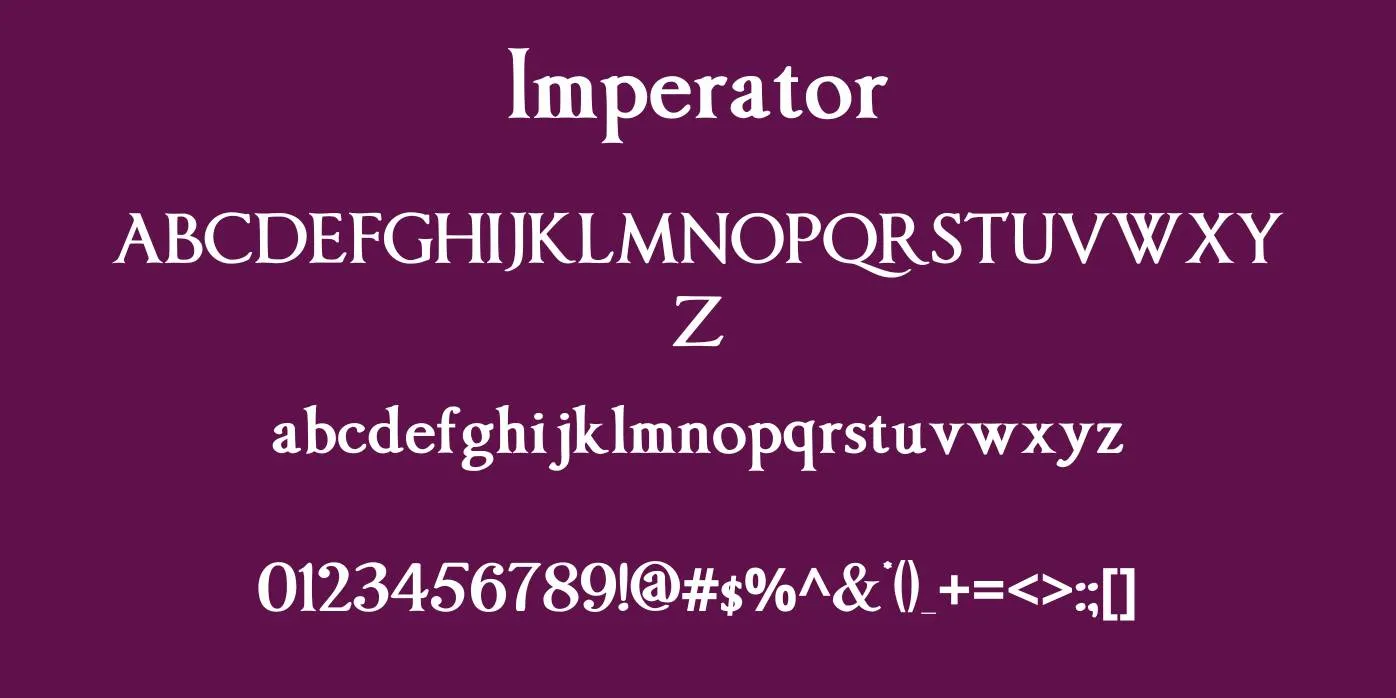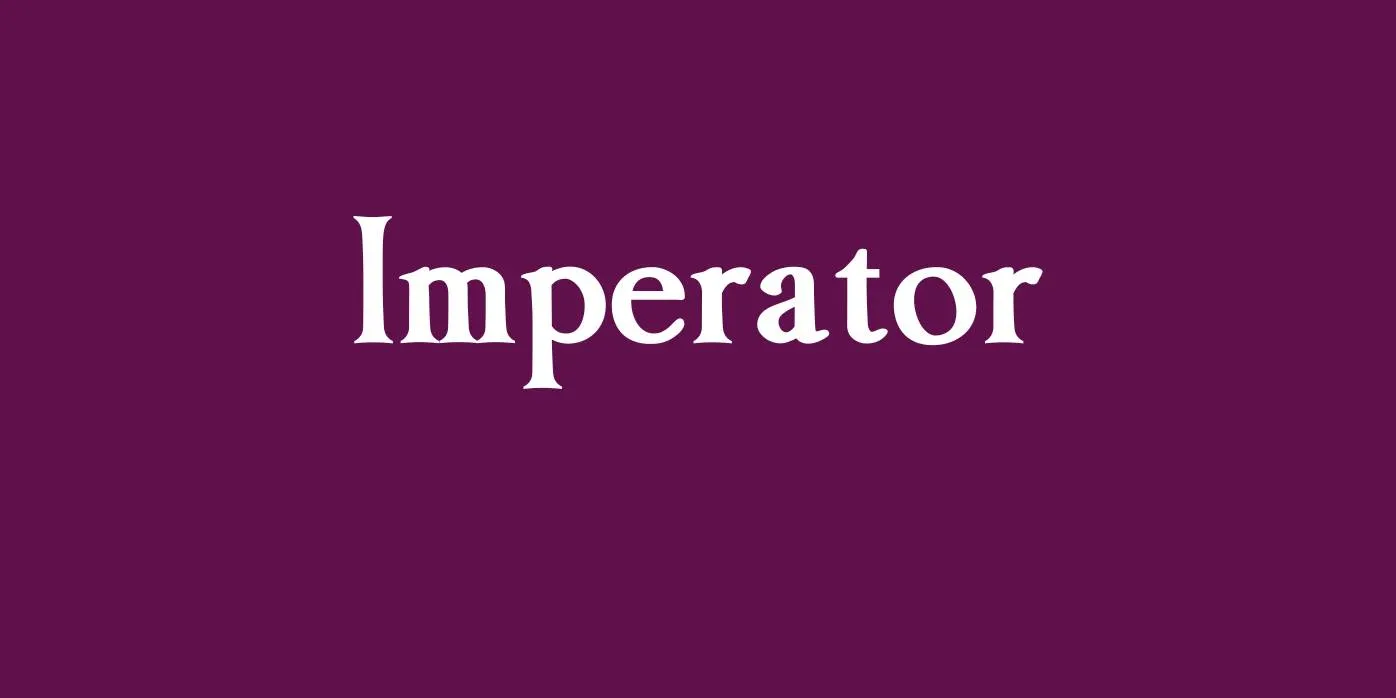
Imperator Font
Imperator Font is a serif type of font. Paul Lloyd is the designer of this texture. There are 92 stunning glyphs for this texture. There are 7 different styles for this typeface.